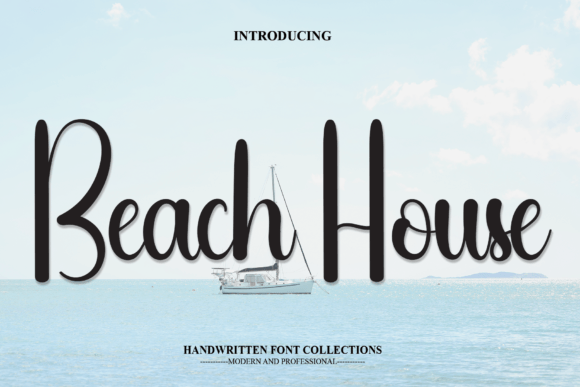
Journey to the Heart of Elegance with Beach House Font: A Calligraphic Masterpiece for Your Creative Endeavors
In the realm of typography, there lies a font that captures the essence of charm, playfulness, and sophistication like no other—Beach House Font. This exquisite script font, crafted by the ingenious hand of william jhordy, is a testament to the beauty and versatility that handwritten calligraphy can bring to your digital creations.
Picture the allure of a sandy shoreline adorned with seashells and driftwood, the gentle rhythm of waves lapping against the shore, and the warmth of the sun-kissed breeze—Beach House Font embodies this captivating ambiance with every curve and stroke. Its unpretentious charm lends itself seamlessly to a myriad of design projects, inviting you to unleash your creativity and leave a lasting impression.
Whether you're crafting heartfelt wedding invitations, designing whimsical greeting cards, or adding a touch of whimsy to your branding materials, Beach House Font has the remarkable ability to transform the ordinary into the extraordinary. Its sweet and friendly demeanor exudes warmth and approachability, drawing your audience in with its undeniable allure.
As a type designer myself, I can attest to the meticulous attention to detail that has gone into the creation of Beach House Font. Each letterform has been lovingly crafted to maintain a flawless balance between legibility and aesthetic appeal. Whether you're using it in large headlines or delicate body text, Beach House Font retains its integrity and readability, ensuring that your messages are conveyed with clarity and grace.
So, embark on a typographic adventure with Beach House Font and let your imagination run wild. Its versatility and boundless charm will ignite your creativity and produce designs that resonate with your audience on a profound level. Dive into the world of Beach House Font today and experience the joy of creating designs that are as unique and captivating as the sound of waves crashing against the shore.